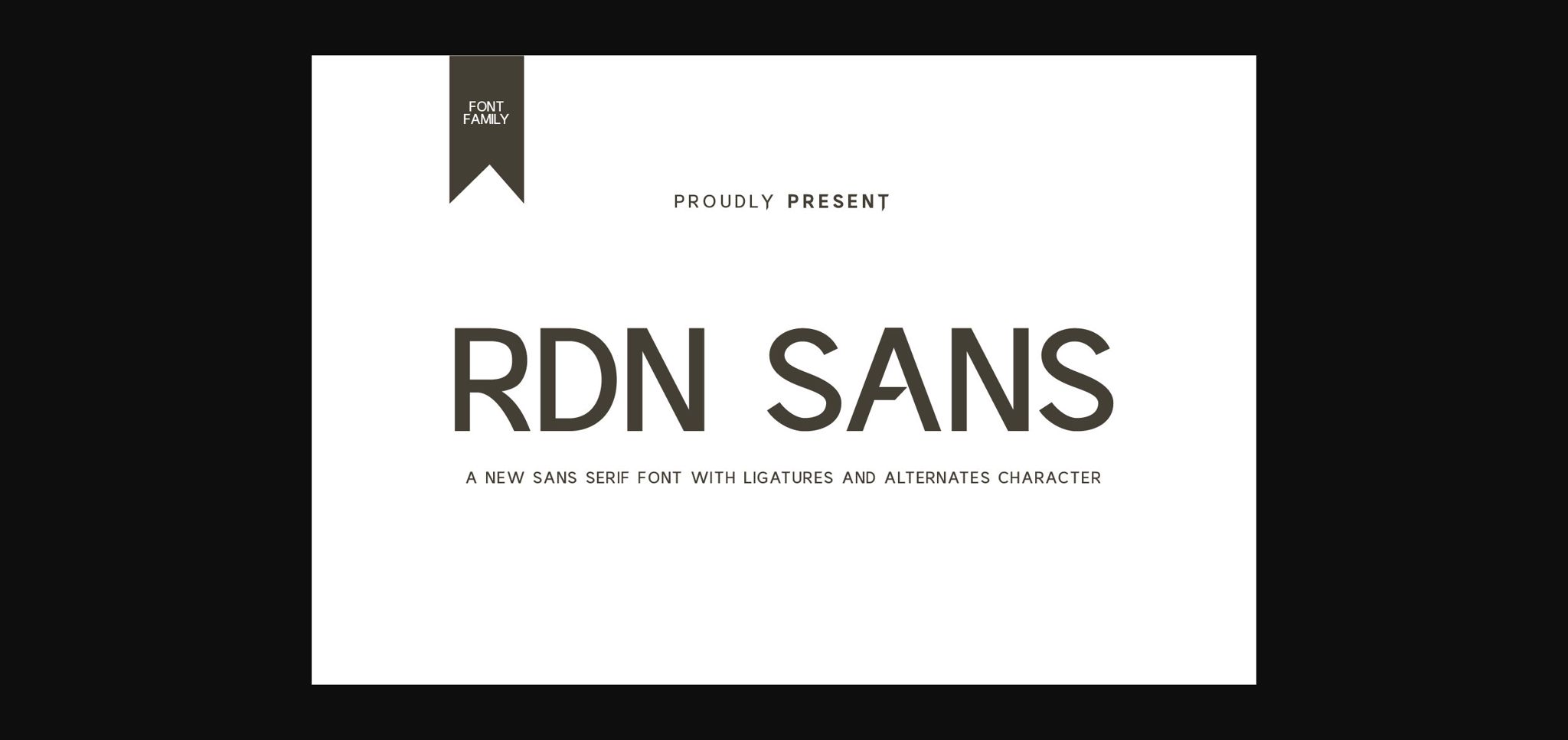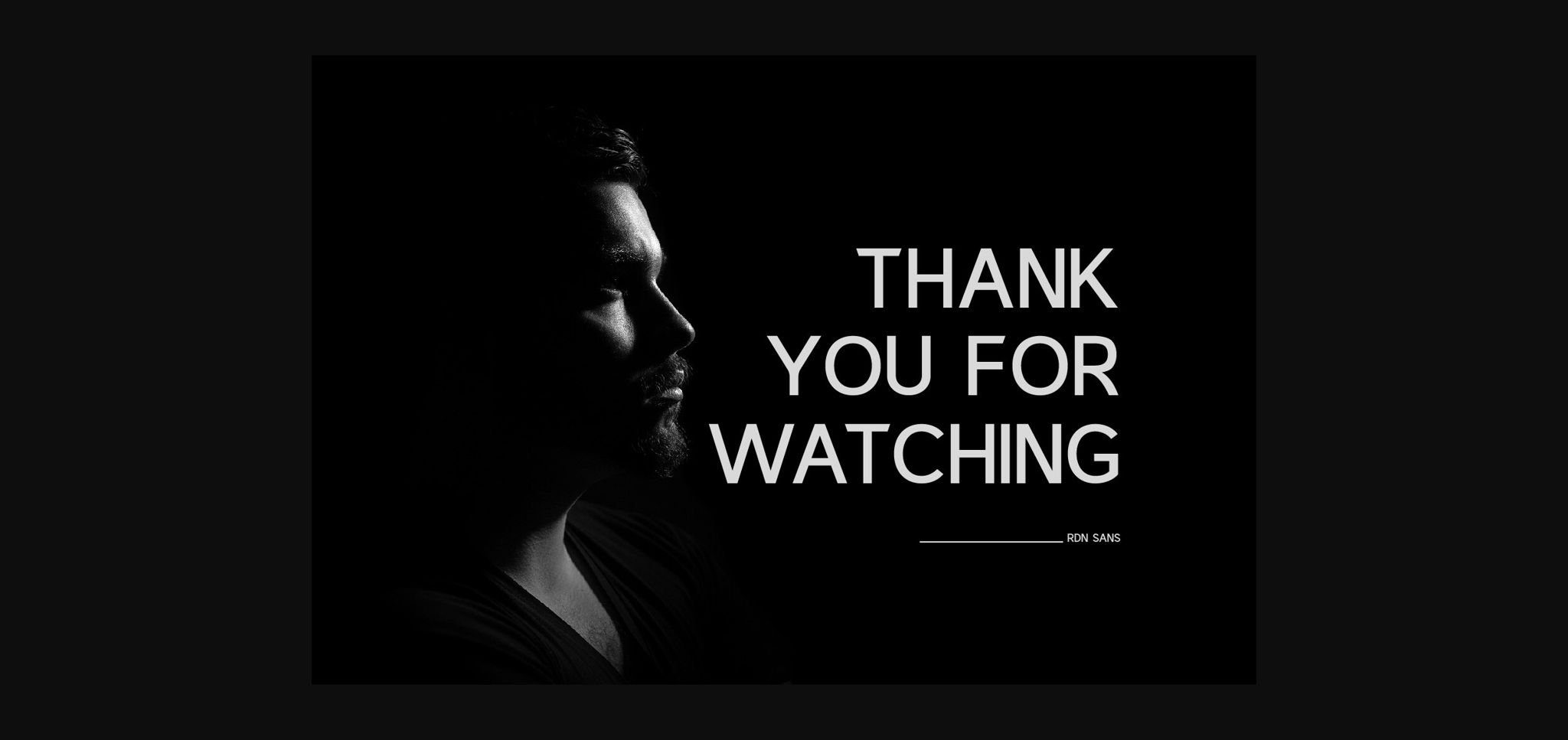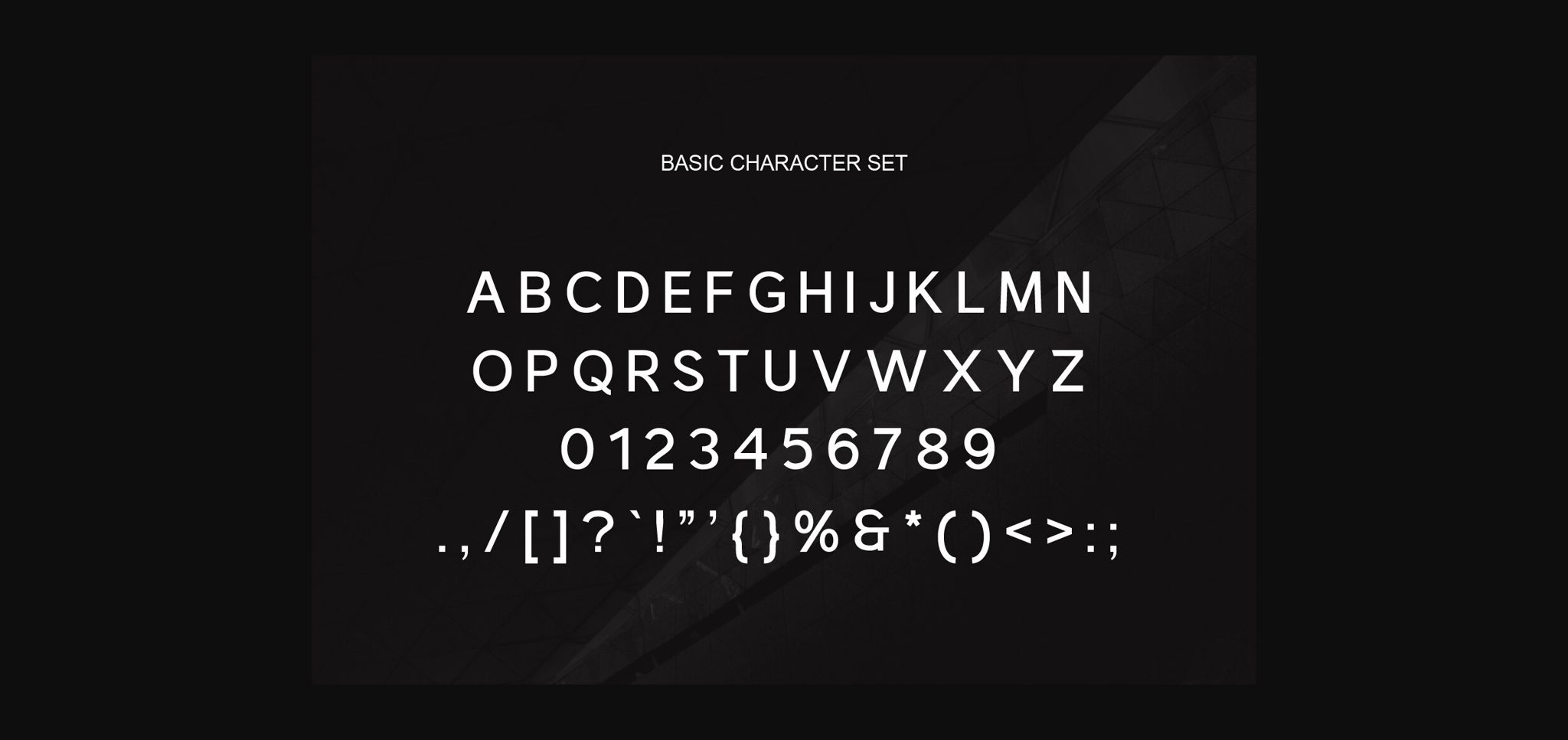
About Rdn Sans Font
Introducing my newest product called RDN SANS. This font is a sans serif font. You can freely use this font for your work because this font is equipped with additional features such as Ligatures and Alternate characters. You can use this font to create presentations, wedding invitations, magazines, covers, banners, and others.